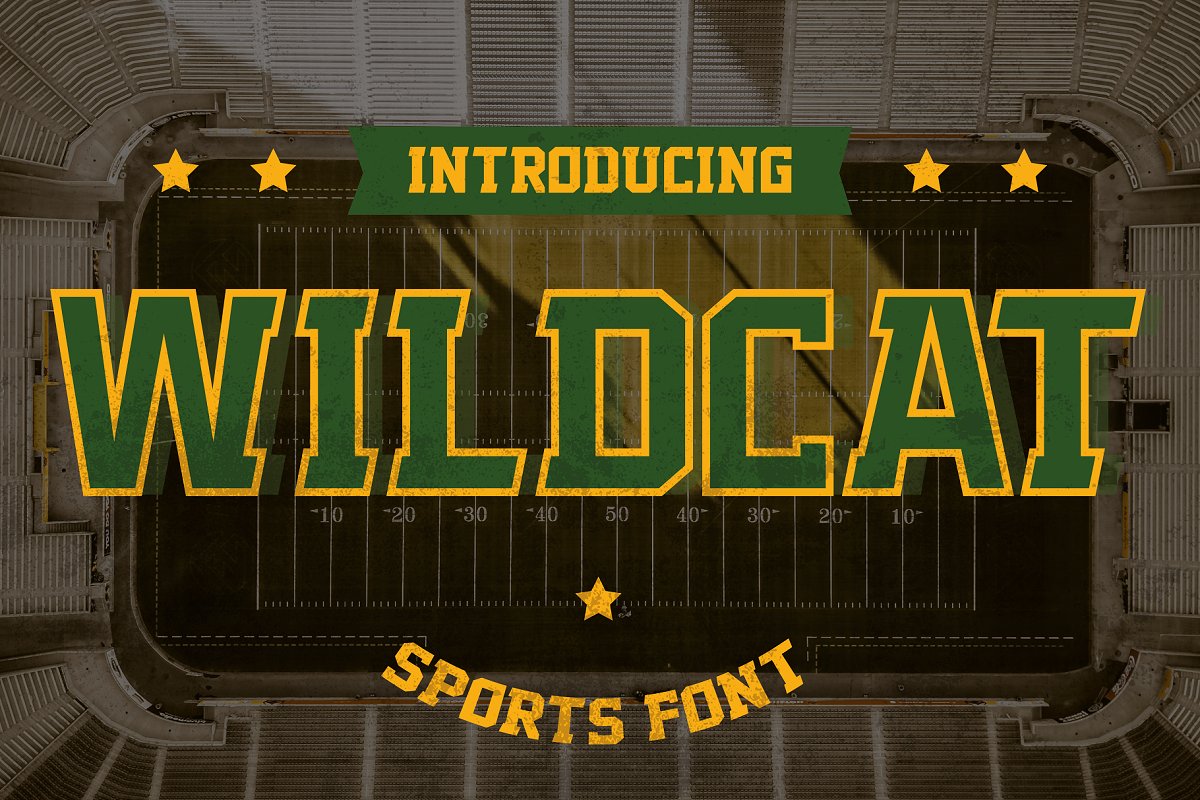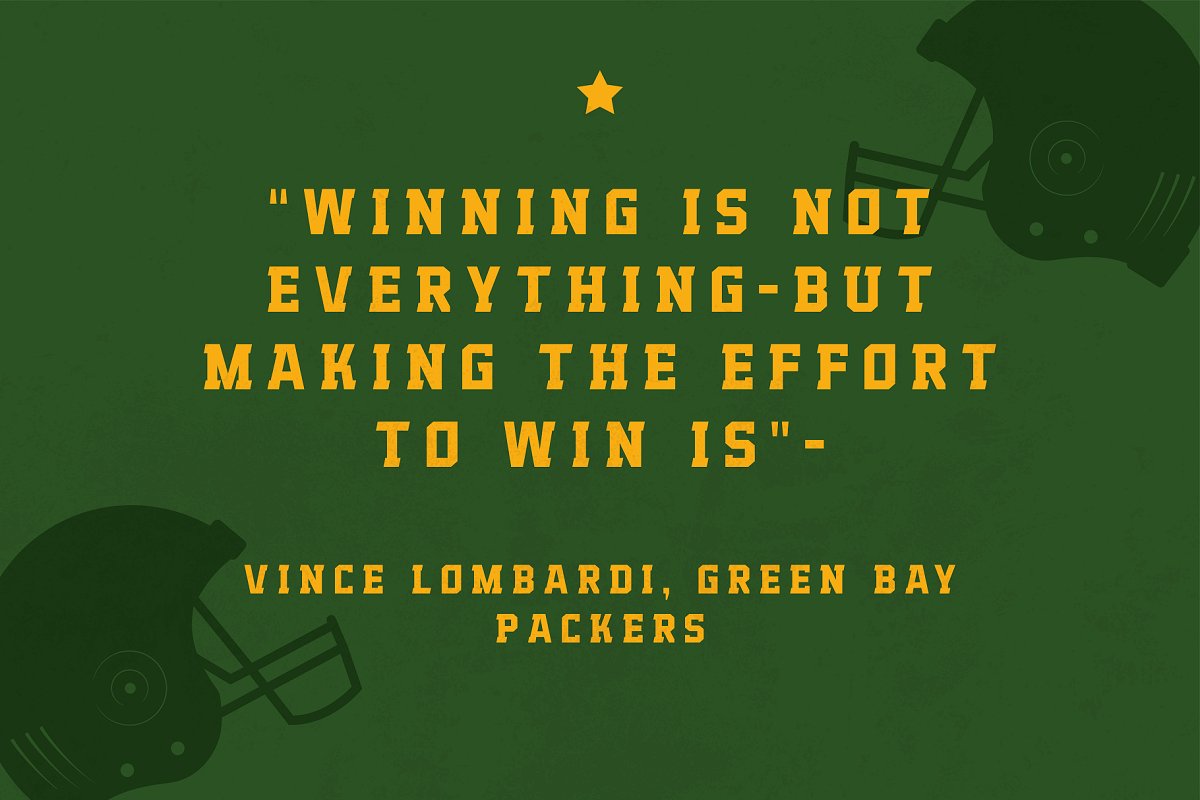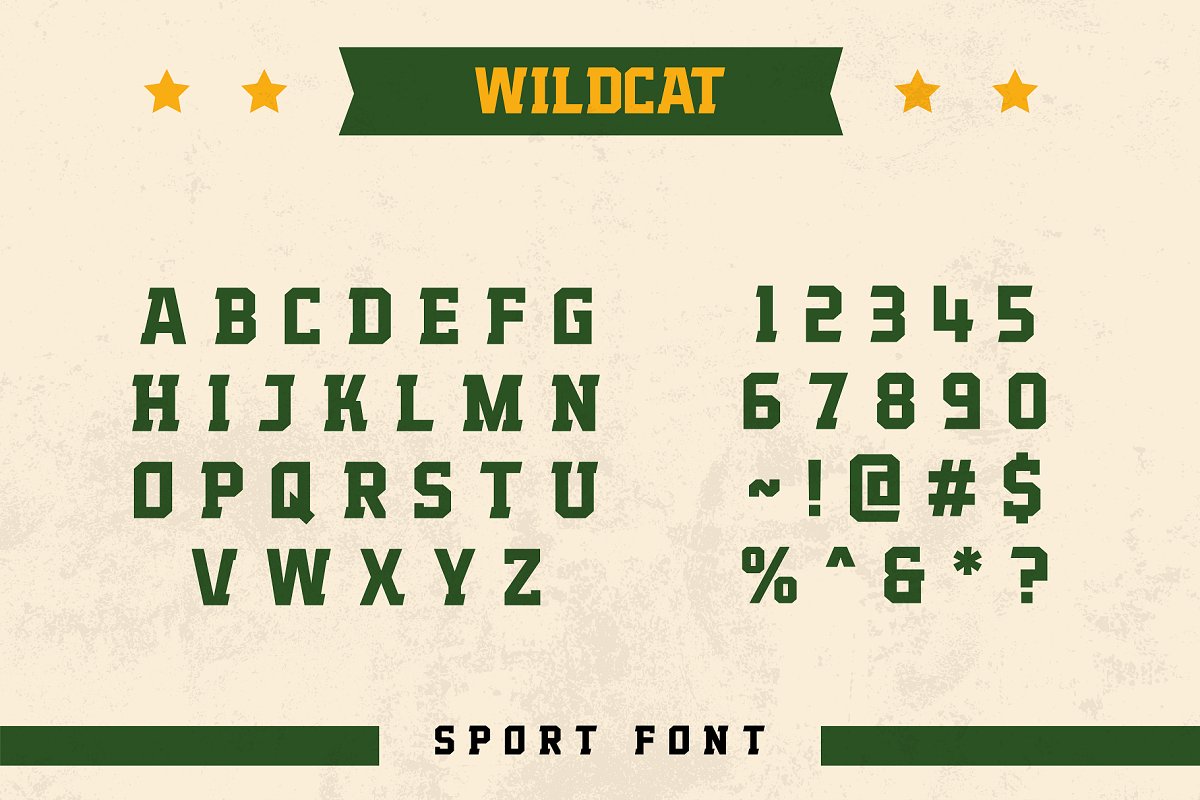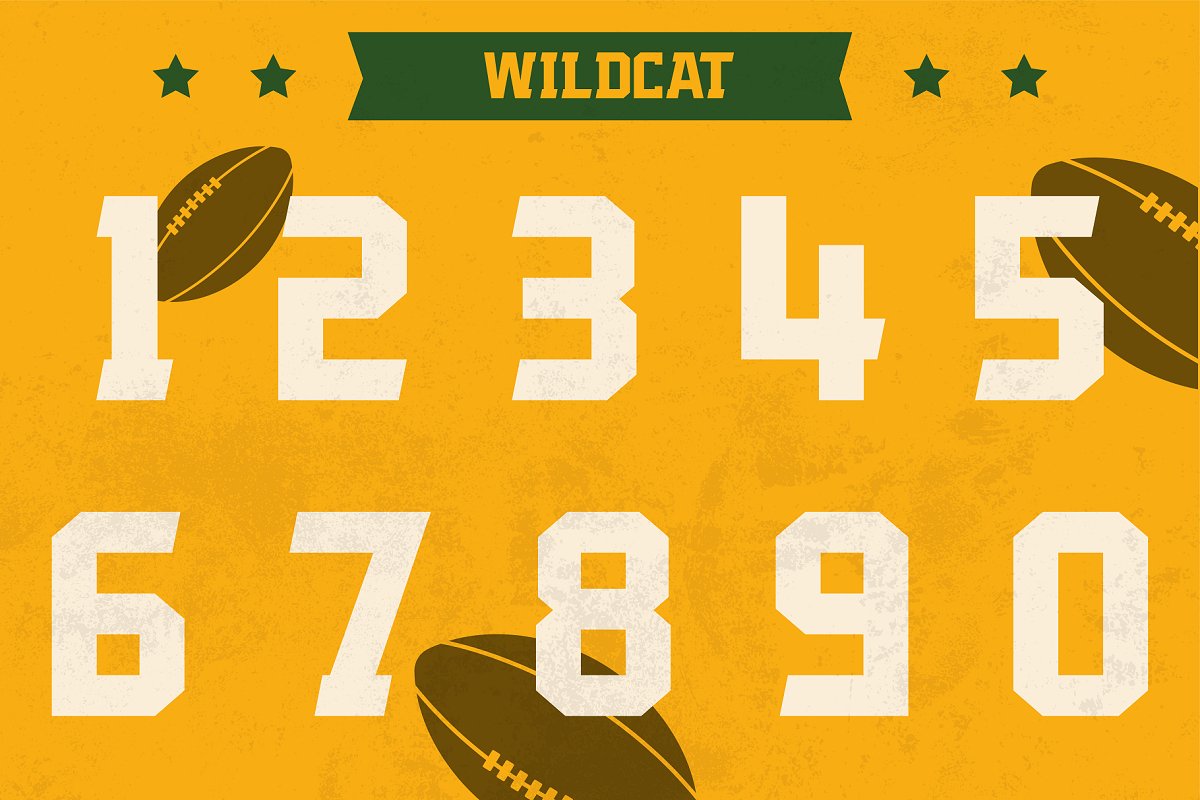
About the Wildcat Varsity Sport Typeface
Wildcat is an athletic typeface perfect for basketball, football, softball, baseball, soccer, and hockey related projects, You can use it to create powerful logotypes, posters, apparel, magazines, stationary, headlines, labels, badges, and much more, Give your designs a bold look today with Wildcat!This product is included in the Creator Bundle, A collection of over 225 professional and unique fonts for your creative projects